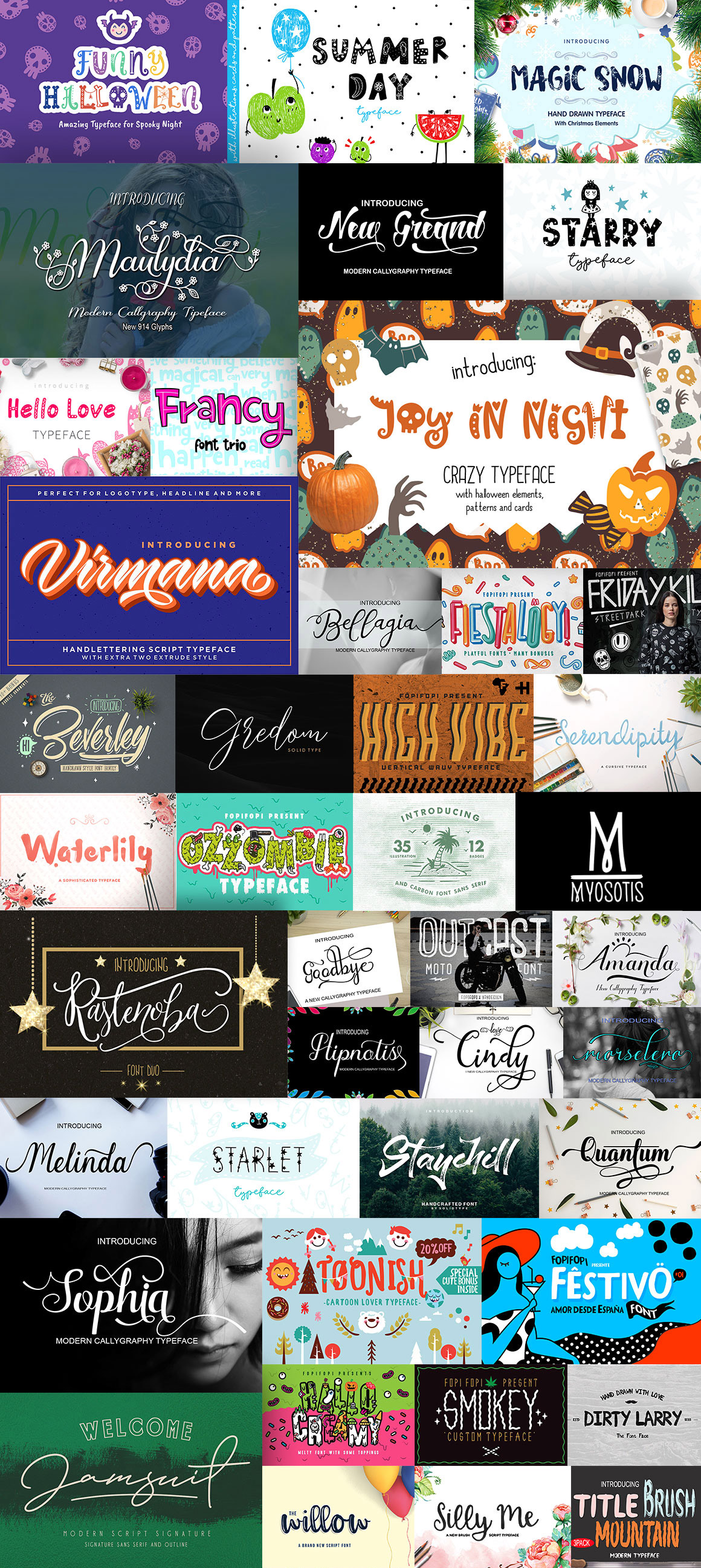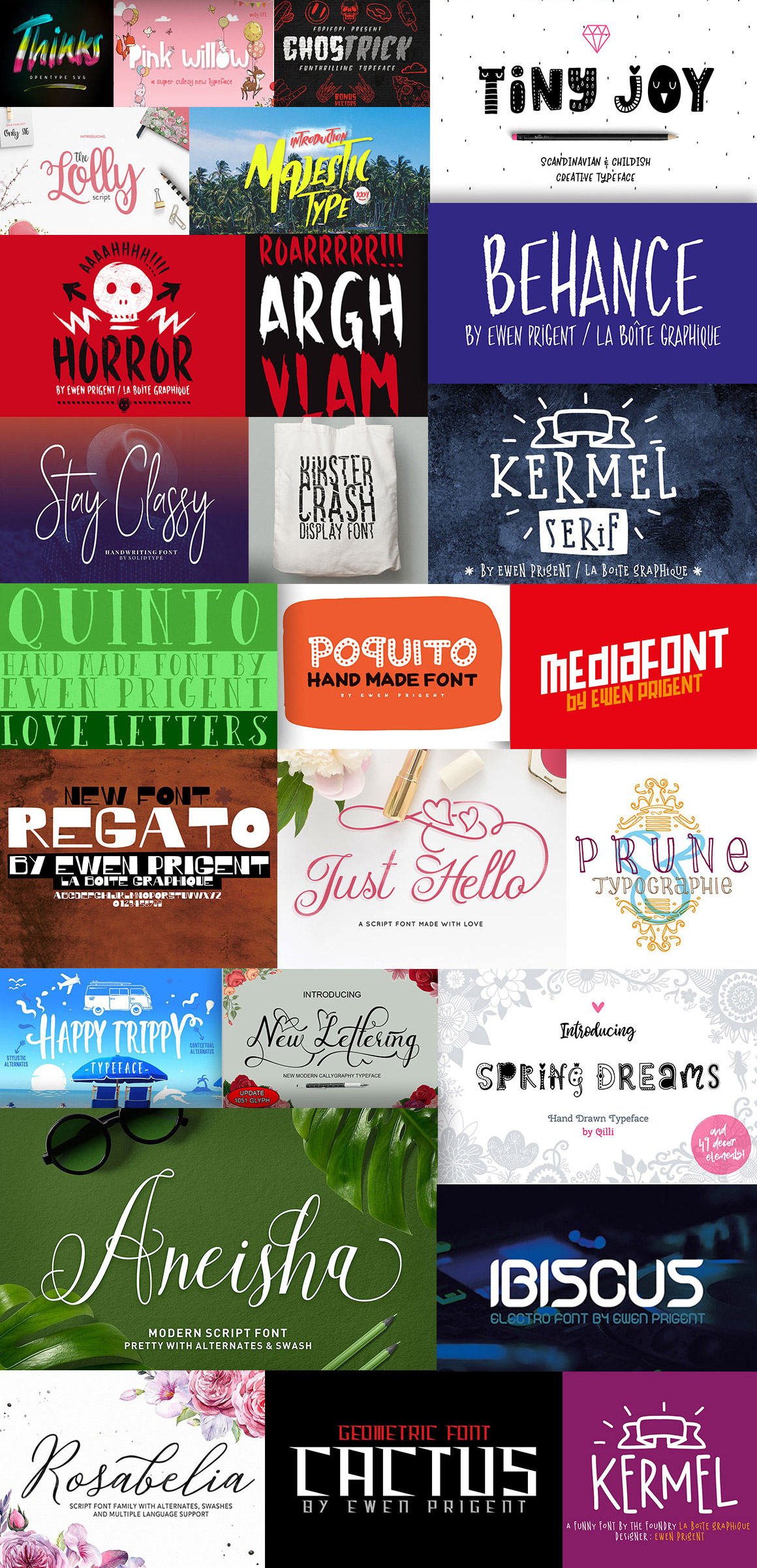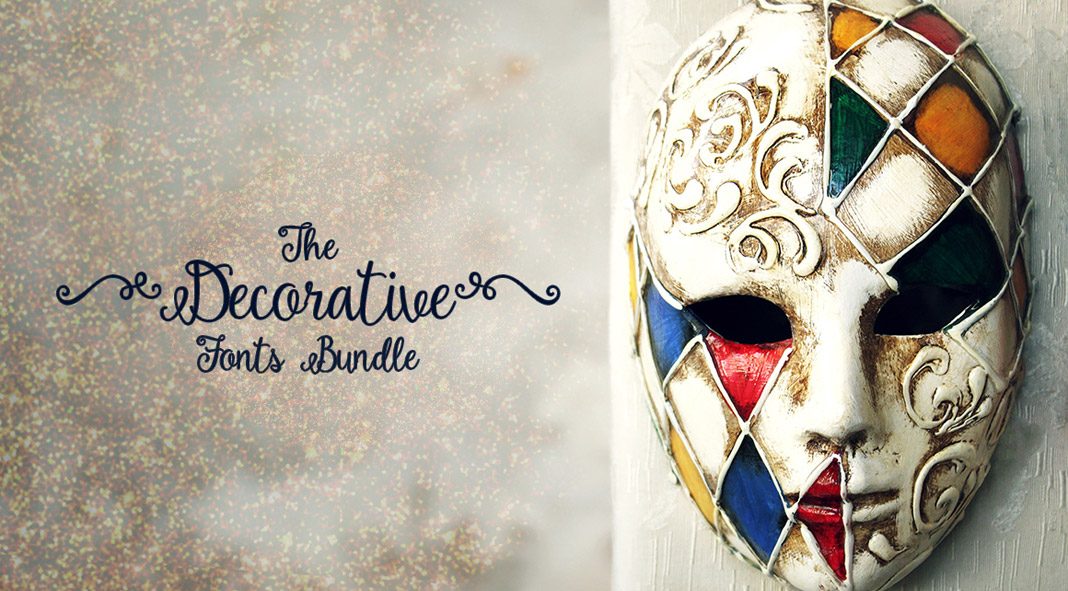
Make the best holiday-themed designs with this decorative fonts bundle.
The holiday season is here once again, and for designers tasked to make branding and copies stand out, having a complete arsenal of design assets is a must. This is where Pixelo comes in handy. The company proves time and again that they are a reliable source of stylish and unique fonts. This latest bundle is sure to be a hit this season: The Decorative Fonts Bundle will add that holiday touch to your designs. Featuring 67 font families that include alternate characters, multiple language options, and different styles, the bundle contains 121 unique fonts! These font options are perfect for adding personality to your holiday designs—may it be it for Thanksgiving, Christmas or New Year. The bundle is available only for a very limited time—just follow the link below.
Here are some of the perks you get from acquiring this bundle:
- 67 eye-catching font families, sourced from the world’s top font designers
- 121 distinct font styles that include language customization and font variations
What’s included in The Decorative Fonts Bundle?
Every typeface featured in this bundle has a bold aesthetic found nowhere else. These fonts can help you make exceptional designs for special events. Let’s take a look at some of the most noteworthy design assets in this bundle:
1. Tiny Joy
Designed by Qilli, this font embodies pure playfulness, with its eclectic mix of hearts, doodled faces, and patterns. Even with such fun features, the all-caps font does not look gaudy at all. Instead, it adds just enough whimsy to bring the holiday vibe to project design. Use it on kid-themed shirts, fun cards and banners, holiday landing pages, and other materials.
2. Funny Halloween
This is another typeface from Qilli, which gives Halloween fans a feast with its intricate and playful details. Cobwebs and ghosts inside letters, bones framing letter edges, skeleton heads as your O’s – these are showcased across all elements, but with zero macabre factor! It stays true to its name by keeping the designs youthful and funny. The set includes both upper and lowercase letters, numbers, special characters, accents, and ligatures.
3. Friday Killer (Font + Bonus Elements)
Want to add some edginess to your design project? This is the perfect font for you. Inspired by rock music fashion, this font features slim lines with razor-sharp angles. It’s got normal, bold, and italic options, numerals and punctuations. The set also comes with a collection of vector images – rose, skull, motorbike, and many more – every object will make you shout, “Rock on!”
4. Magic Snow
Taking one of the most common symbols of the holiday season – snowflakes – and incorporating it tastefully in its design, this font style goes full on with its Christmas theme.
Rustic, hand-drawn look for letters accentuated with partial snowflake patterns in different positions give this design an authentic feel. Colorful Christmas elements, like a pine tree, balls, poinsettias, and borders are included in the set.
5. Fiestalogy!
Two words come to mind upon seeing this typeface: fun and cheery. Displaying tall, friendly lettering highlighted by different vibrant colors each, some letters even lean a bit adding more whimsy to the entire look. This set includes uppercase and lowercase options, numerals and punctuations, plus vector images. You’ll want this font when you’re designing party invitations, events, and festivals.
6. Majestic
Designed by bloomxxvi, this typeface gives that distinct summer feel. The custom hand-lettering with an all-caps style is bold and oozes confidence. This font is ideal if you want your quotes, posters, and digital products to attract the young and young-at-heart.